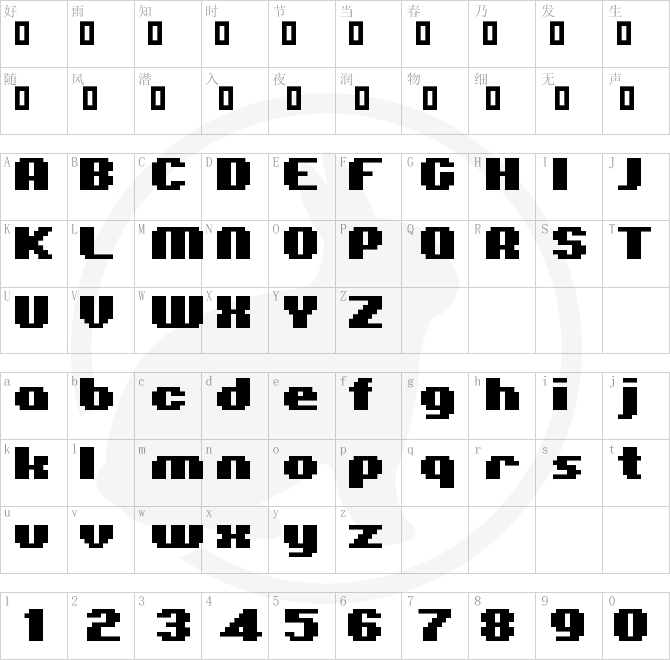
- Font Name:01EnergetixSmallRound
01EnergetixSmallRoundBold.ttf is a very beautiful artistic font, 01EnergetixSmallRoundBold.ttf is widely used in the design and printing of various books and pictures,01EnergetixSmallRoundBold.ttf has a strong visual impact,01EnergetixSmallRoundBold.ttf is a commonly used font in newspapers, magazines and books, and is used in posters, e-commerce Poster design, store design, logo design, font design and other fields.01EnergetixSmallRoundBold.